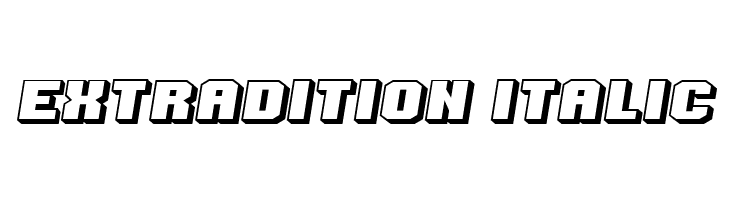
• Extradition Italic フォント
A bold, three-dimensional font with an italic slant and shadow effect.
• Furious Ride Linear Regular フォント
A bold, dynamic font with a unique linear pattern and modern industrial feel.
• Furious Ride Oriental Book Fat Regular フォント
A bold, decorative font with intricate geometric patterns inside each uppercase letter.
• Hearts and Arrows Regular フォント
A decorative font with characters inside heart shapes pierced by arrows.
• Swimmers Regular フォント
A whimsical font featuring cartoon swimmer figures as characters.
• Gummy Book Regular フォント
A playful, bold font with rounded edges and a cohesive design.
• 3D Letters Regular フォント
A bold, 3D font with a playful and dynamic style.
• 3D Letters Shadow Inverted Regular フォント
A bold, 3D font with inverted shadow effects for a striking appearance.
• 3D Letters Shadow Regular フォント
A bold, 3D font with shadow effects for a striking visual impact.
• Tracking Bold Italic フォント
A sleek, italicized font with a modern, streamlined design.